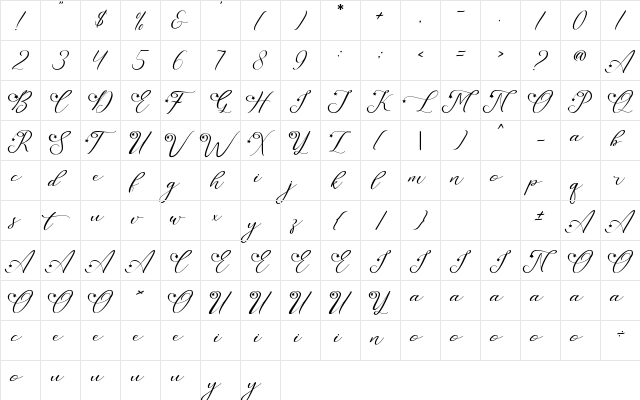
Leslie Dawn Star Regular
| Foundry | Graphix Line Studio |
| Designer | Aldi Raya Pradipta |
Design Context for Leslie Dawn Star Typeface
Leslie Dawn Star is a composed and adaptable typeface that performs quietly and consistently across a wide range of design contexts.